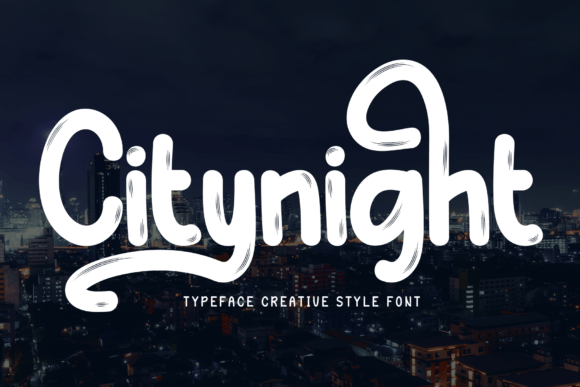
Embark on a typographic adventure with Citynight Font, a captivating script font family that will ignite your creativity and leave a lasting impression on your audience. Designed by the talented andikastudio, Citynight Font is a true masterpiece that combines elegance, charm, and a touch of whimsy.
With its intricate letterforms, flowing curves, and delightful swashes, Citynight Font is the perfect choice for creating eye-catching logos, branding, quotes, and any other design project that demands attention. Each letter is a work of art, carefully crafted to exude a unique and beautiful touch, bringing your designs to life with a captivating allure.
Step into the realm of visual enchantment with Citynight Font. Its timeless handwritten style evokes a sense of nostalgia and romance, while its modern twist adds a touch of contemporary flair. Whether you're designing for a vintage-inspired project or a cutting-edge campaign, Citynight Font effortlessly adapts, becoming an integral part of your creative vision.
Imagine your designs adorned with Citynight Font, where each word dances across the page with grace and fluidity. Its enchanting aura will captivate your audience, drawing them into your world of words and images. Create logos that exude sophistication, branding that radiates personality, and quotes that resonate with emotion.
With Citynight Font, your designs will transcend the ordinary and enter the realm of the extraordinary. Unleash your imagination and let the magic of this font transform your projects into stunning works of art. Experience the joy of creating with Citynight Font and witness the power of typography to leave an indelible mark on your audience.